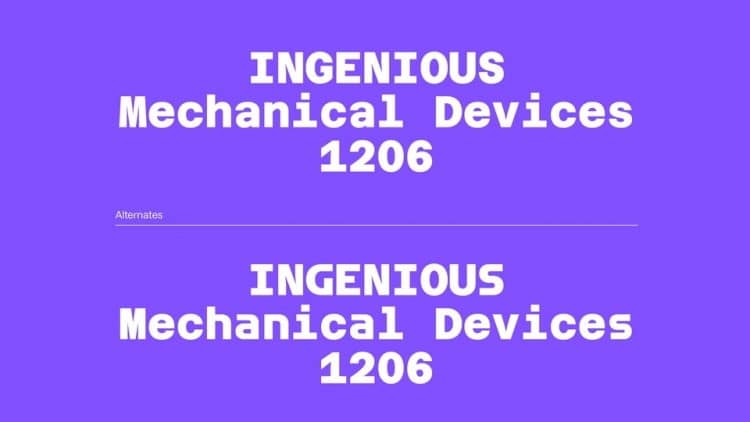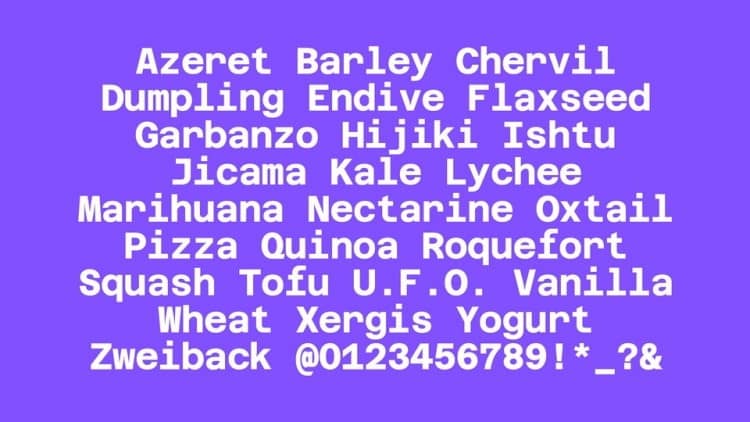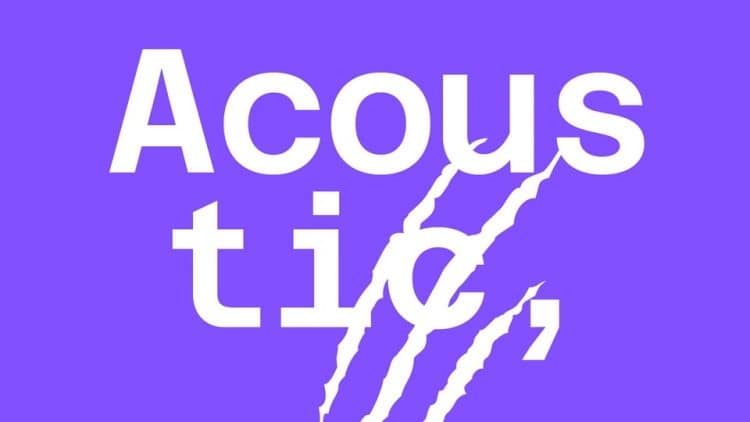
Azeret Sans Serif Font Family
Azeret Sans Serif Font is a contemporary Neo-grotesque sans-serif designed by Displaay. The story of the typeface began with a draft that was driven by an exploration of OCR fonts, past and futuristic operating systems, various interfaces and the nineties. The final result is more based on a desire to achieve an appearance of the typeface that could serve in operating systems. Thus the overall character is a conjunction of everything described with details that evoke a specific personality.
Azeret is a sans-serif typeface with a mono-linear character. Don’t go looking for too much contrast in the strokes! The circular parts of the letters do not have a smooth connection to the stems. The x-height is higher than usual and thus the ascenders and descenders are short. Alternates are also available which open the possibility of creating different moods. A number of them hint at a nineties aesthetic.
Azeret font family includes 8 weights with corresponding Italics including variable version.